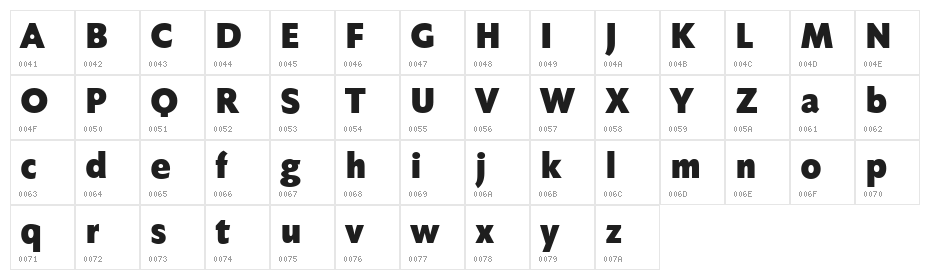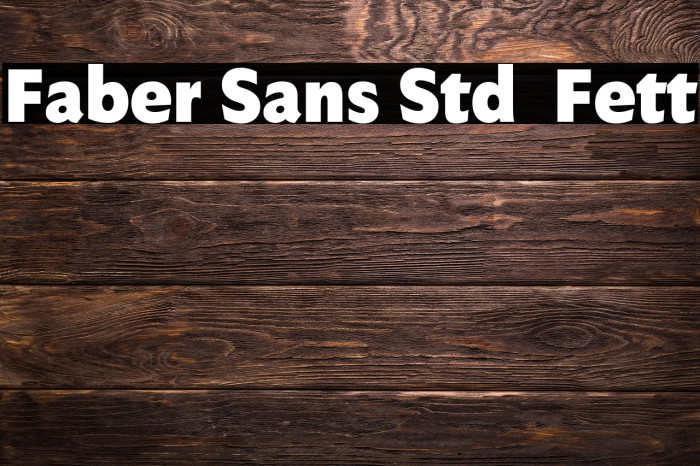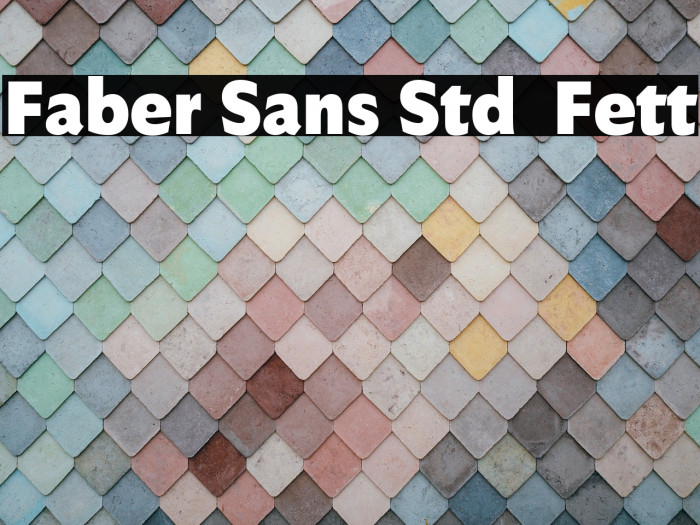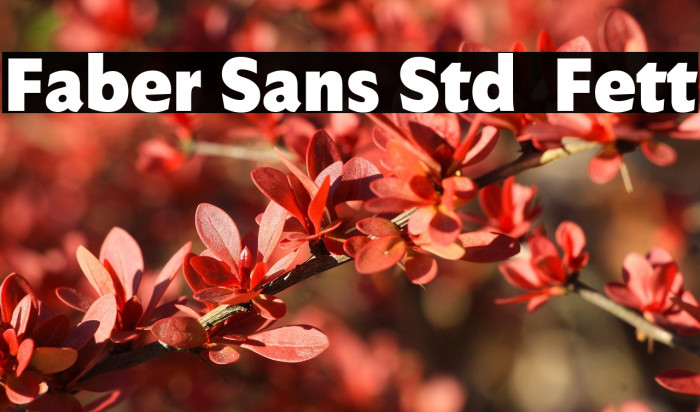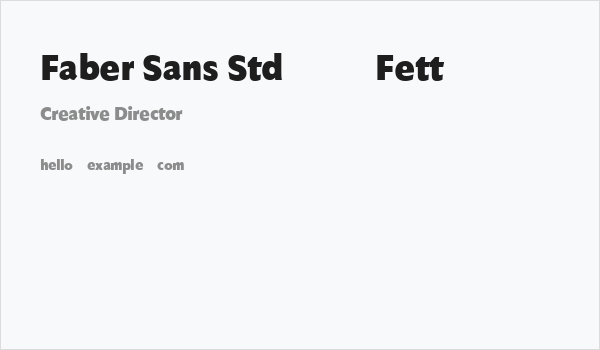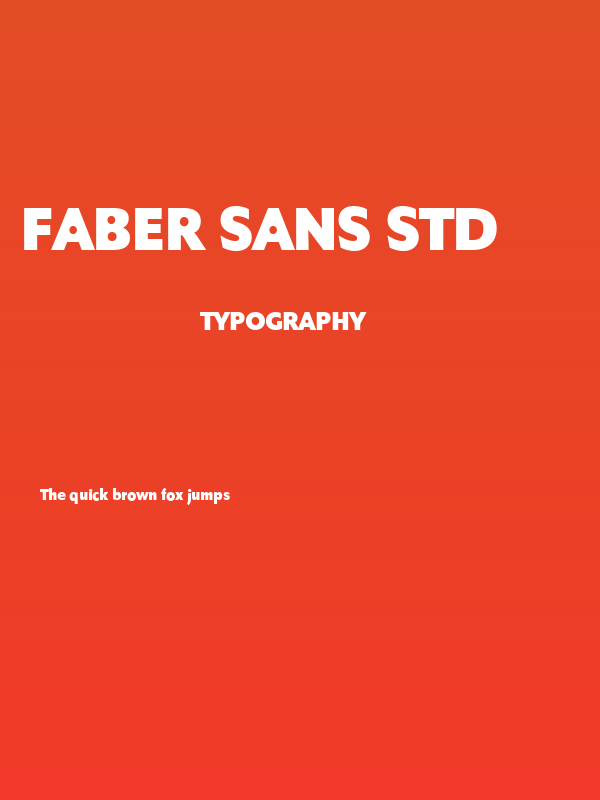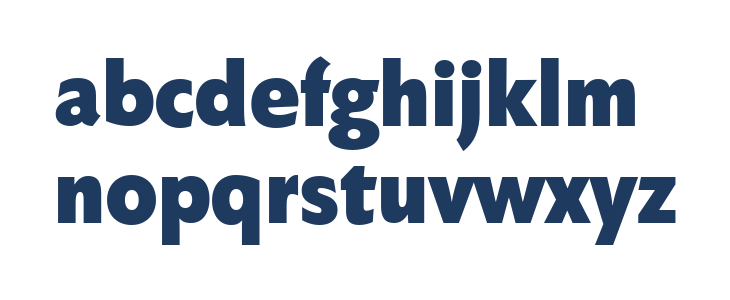
Faber Sans Std 95 Fett Font
Faber Sans Std 95 Fett Description
This typeface features a bold and robust design, characterized by thick, uniform strokes that convey a sense of strength and modernity. The letters are well-defined with a consistent weight throughout, making it highly legible. The sans-serif style gives it a clean and contemporary appearance, suitable for a variety of design applications. The uppercase and lowercase letters maintain a harmonious balance, with rounded edges that soften the overall look. This font is versatile, working well in both digital and print media, and its bold nature ensures it stands out in any context.
| Proposed Projects | Ideal for branding, advertising, headlines, and signage where a strong, modern presence is required. |